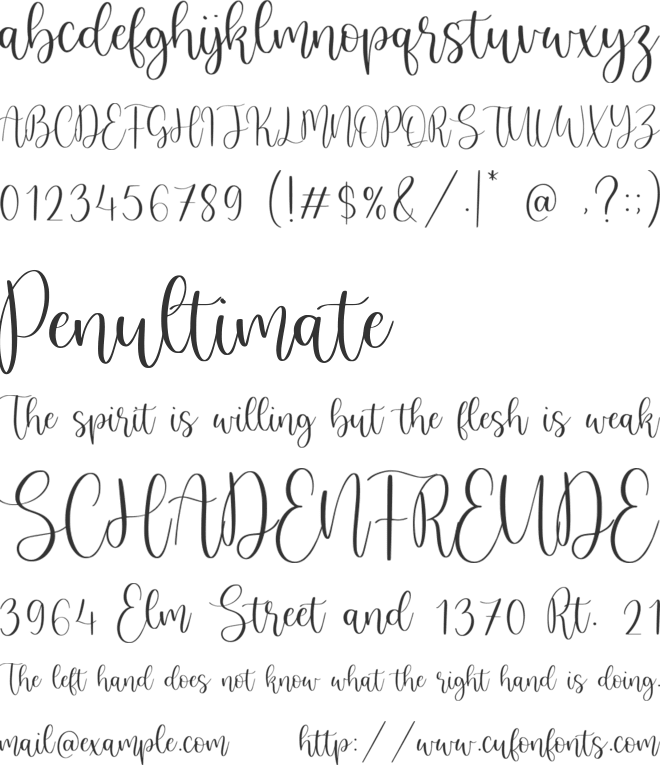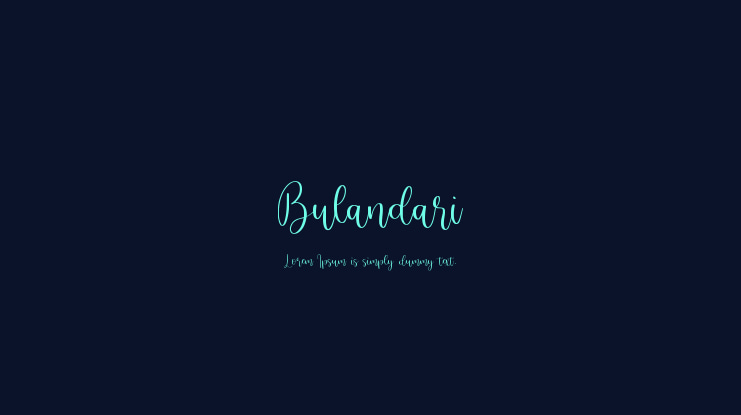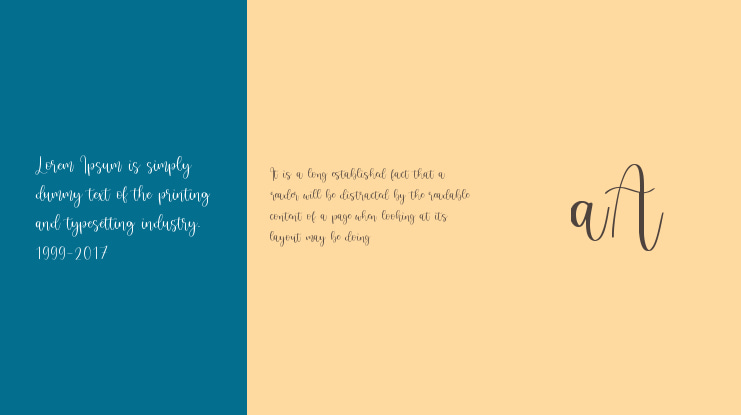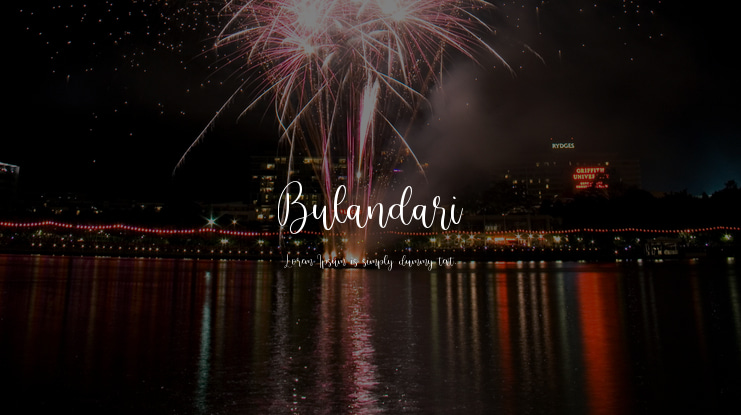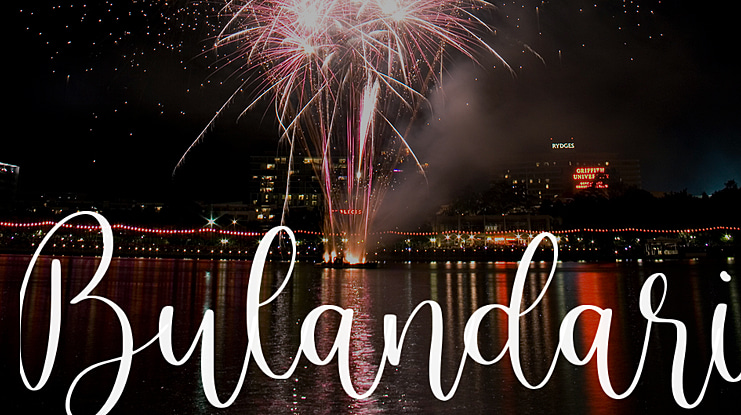
Bulandari Font
Proudly Present, Bulandari Font.
Bulandari is a Modern Calligraphy Font.
Bulandari is perfect for product packaging, branding project, megazine, social media, wedding, or just used to express words above the background.